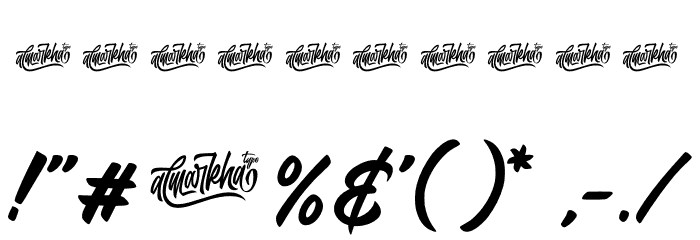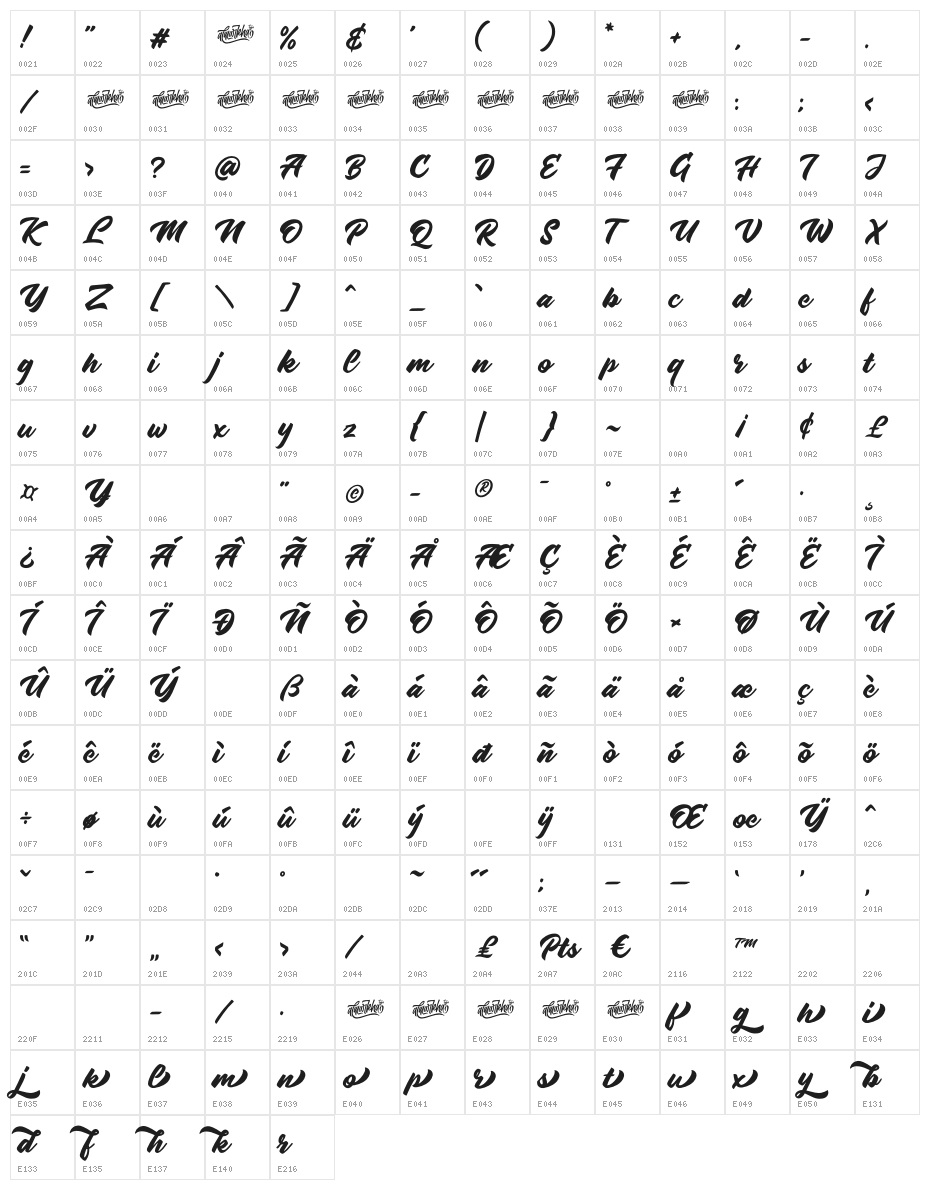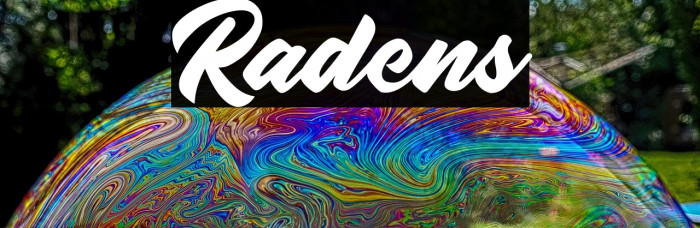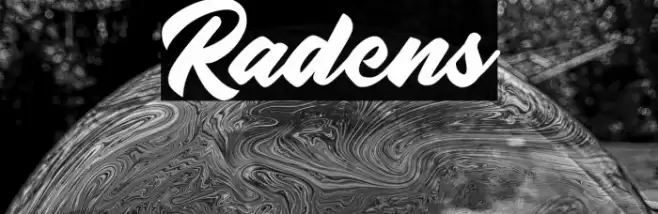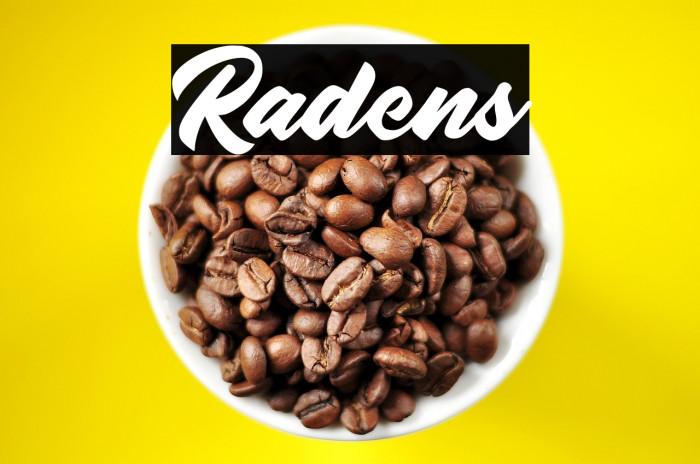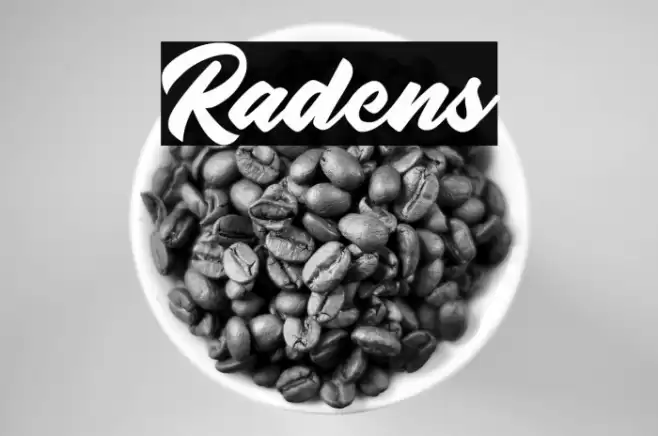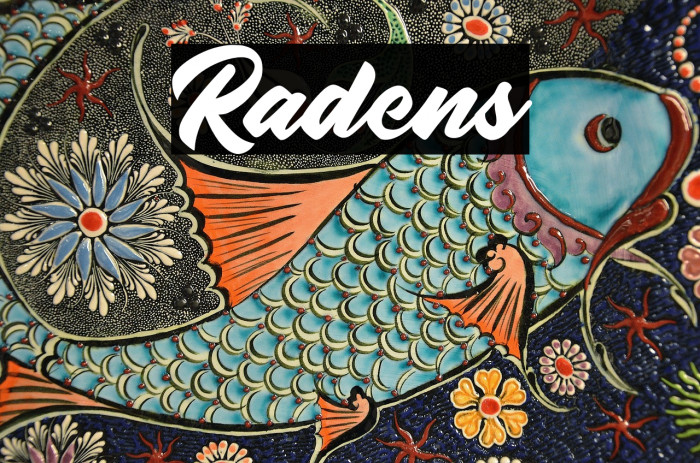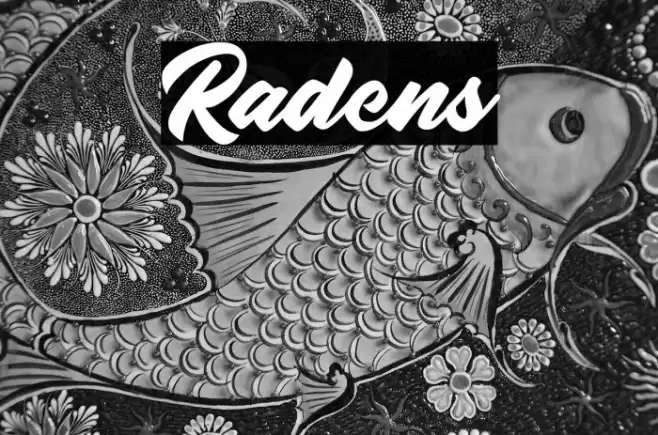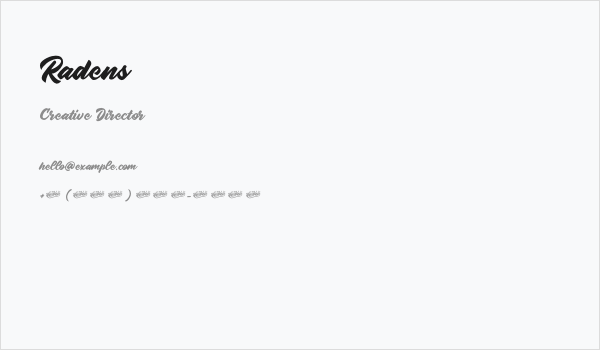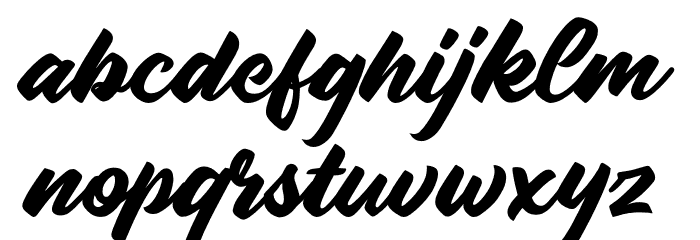
Radens Font
Radens Description
This font features a bold and expressive script style, characterized by its fluid and dynamic strokes. The uppercase letters exhibit a strong presence with their sweeping curves and elegant flourishes, while the lowercase letters maintain a cohesive flow with a slightly more restrained design. The font's overall appearance is both modern and artistic, making it suitable for creative and eye-catching designs. The special characters and numbers are crafted with the same attention to detail, ensuring consistency throughout the typeface. Its bold weight and high contrast between thick and thin strokes add to its striking visual impact.
| Use Case | Logos, Headlines, Branding |
| Proposed Projects | Ideal for branding, logos, headlines, and creative design projects that require a bold and artistic touch. |